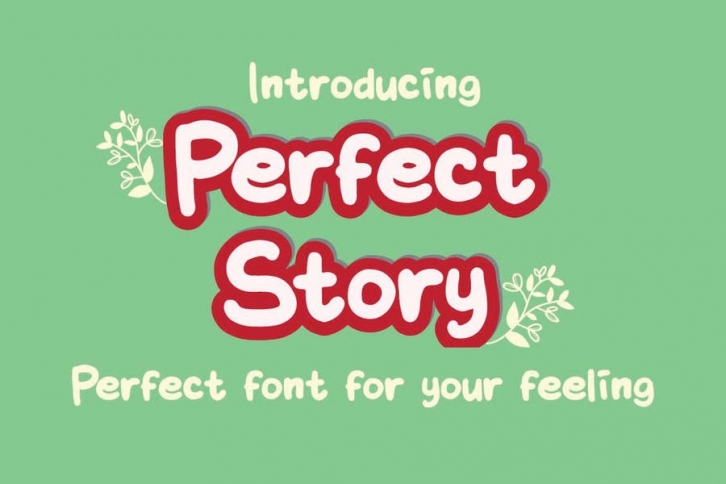
Perfect Story is handwritten font give your designs an authentic handmade feel.
Perfect Story font is perfect for stationery, logos, social media or just about anything that needs that handwritten touch
-Perfect Story font including Upper & Lowercase characters
-Supports Multi linguage (Latin Western Europe),
-Numbers and Punctuation